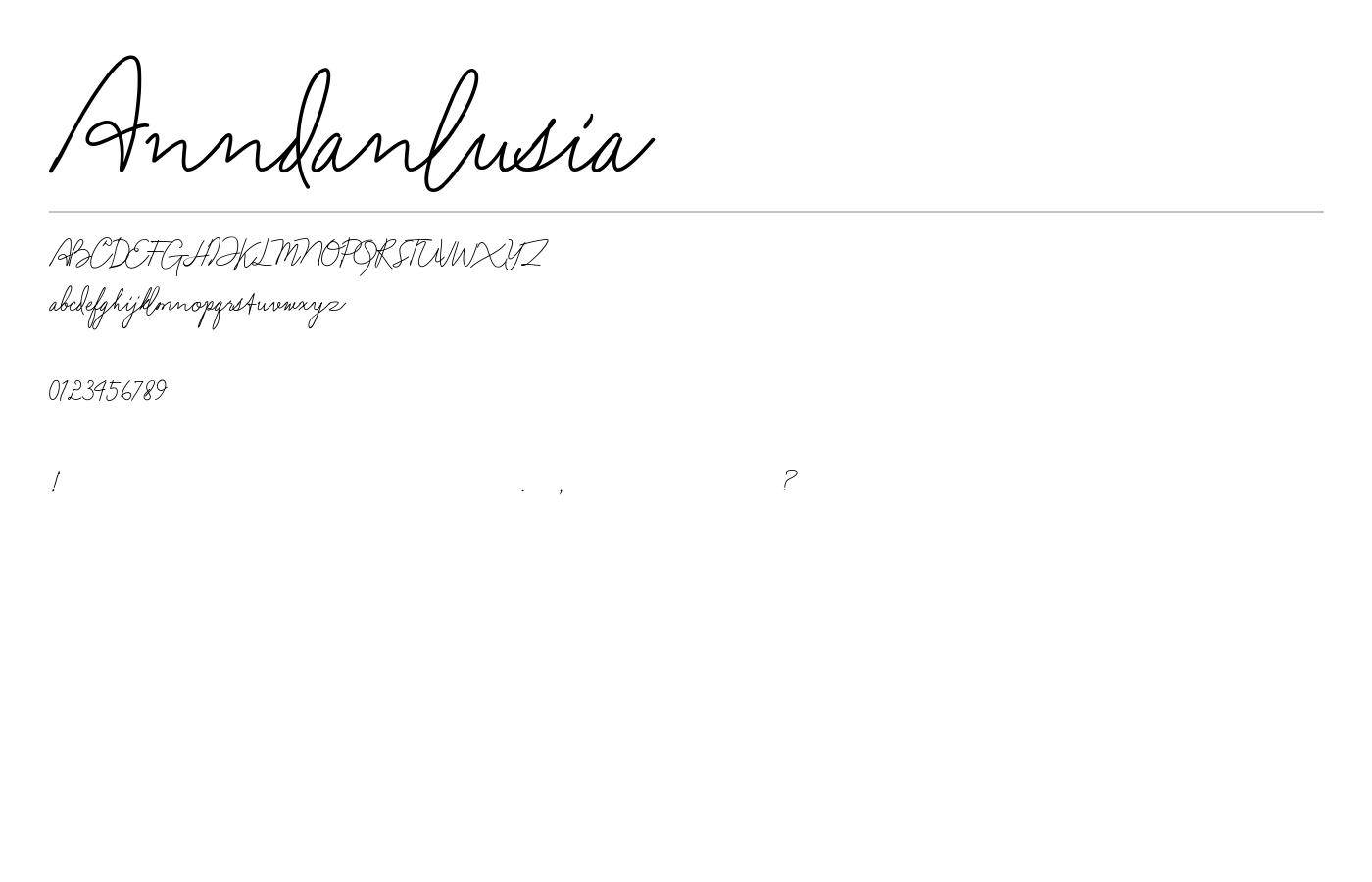
Anndanlusia is a delicate, hand-drawn script font with slender, flowing strokes that evoke a personal and elegant feel. Its tall x-height combined with narrow letterforms and unique cursive style make it ideal for invitations, branding, and creative projects seeking a refined yet approachable look. This font works best in headlines or decorative uses where its graceful, handwritten charm can truly shine.
Anndanlusia Font
About Anndanlusia Font
| Font family | Anndanlusia Font |
| Designer | Ali Hamidi |